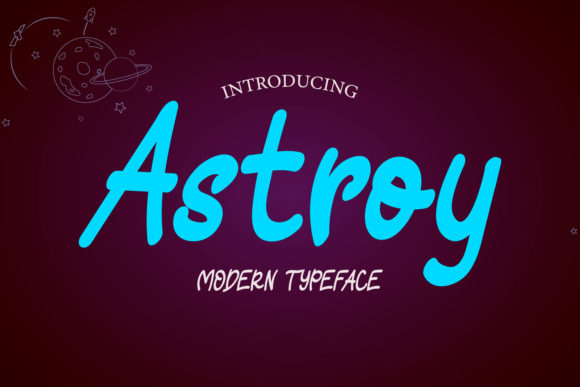
Dive into the world of Astroy Font, a captivating script typeface that will infuse your designs with a touch of warmth and whimsy. Each letter dances across the page like a delicate brushstroke, exuding a natural charm that will captivate your audience.
Crafted by the skilled hands of Crafty Files, Astroy Font is a versatile masterpiece that effortlessly adapts to a myriad of creative endeavors. Whether you're crafting a captivating business website, designing heartfelt invitations, or creating eye-catching social media posts, this font will elevate your creations to new heights.
With its sweet and friendly demeanor, Astroy Font seamlessly blends into any design aesthetic. Its gentle curves and playful flourishes evoke a sense of warmth and approachability, making it an ideal choice for businesses seeking to connect with their customers on a personal level.
But don't let its charming exterior fool you – Astroy Font is a powerhouse of functionality. Its meticulously designed characters ensure crisp and clear readability, even in small sizes. So, whether you're crafting website headlines, engaging social media captions, or creating stunning brochures, Astroy Font will convey your message with impeccable clarity.
Unleash your creativity and let Astroy Font ignite your designs. Its boundless versatility empowers you to craft a unique and unforgettable brand identity that will leave a lasting impression on your audience.